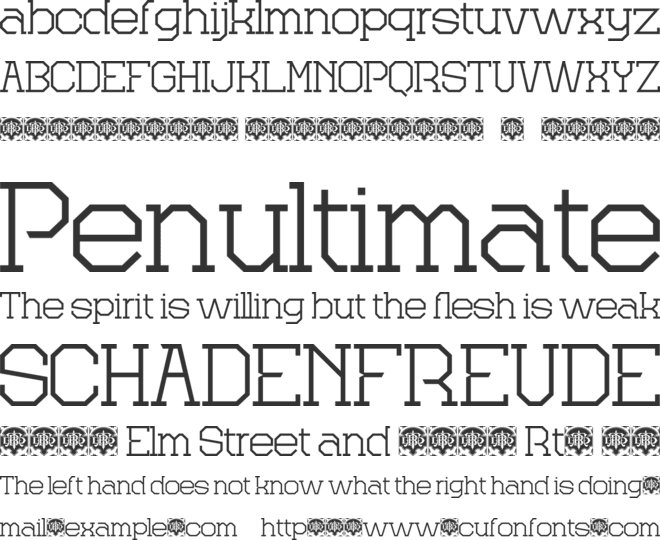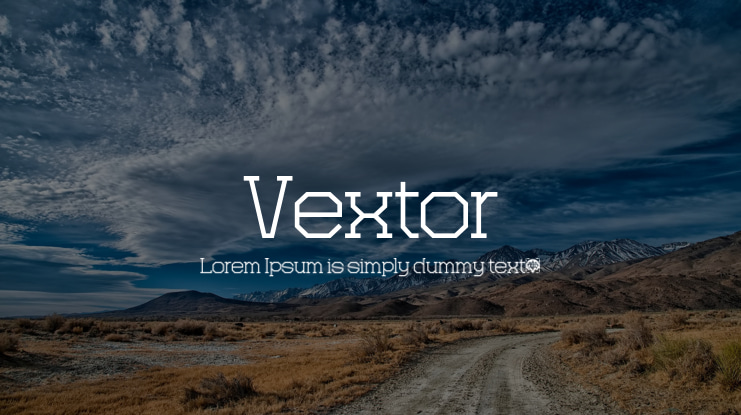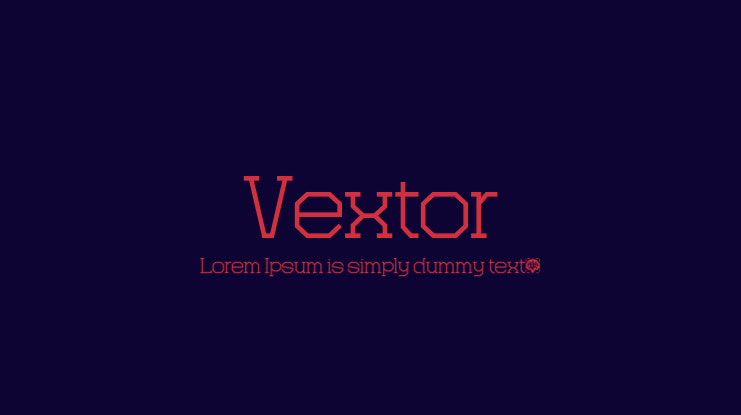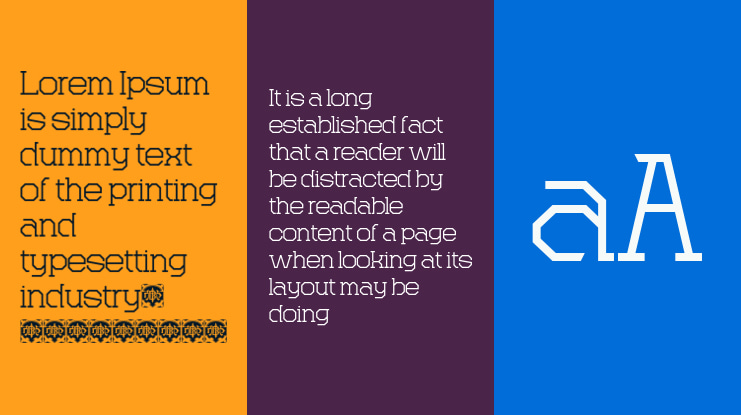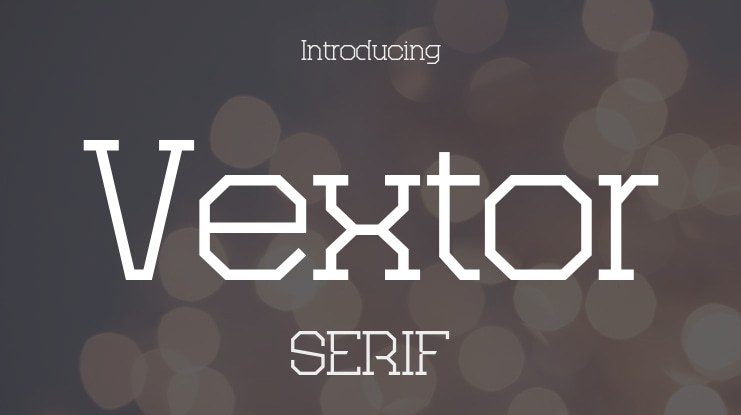
Vextor Font Family
Introducing Vector, a modern straight serif design with a futuristic flair. This font is characterized by clean lines, geometric shapes, unique angles, and a sense of motion. It evokes a feeling of innovation and advanced technology, all within a minimalist design.